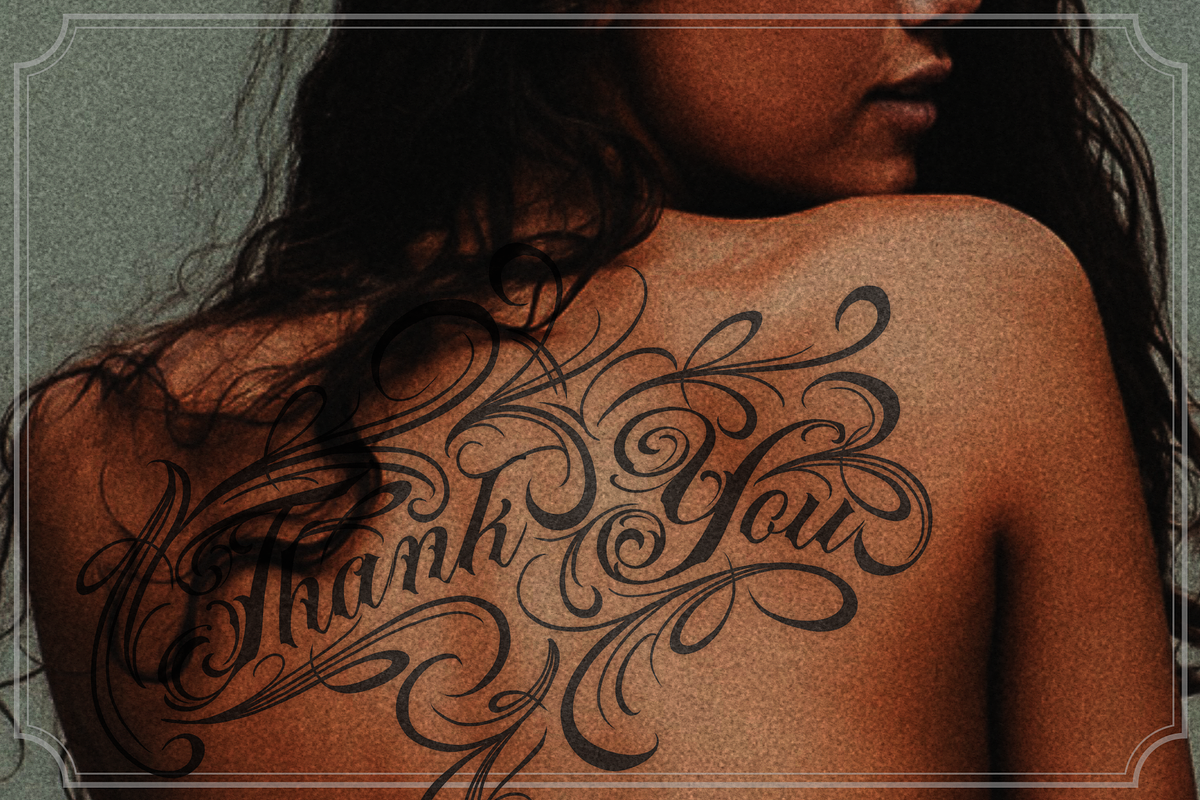
ACUENTRE
is a typeface script that is combined with a Gothic style, so it will be very suitable if you need a font with a gothic impression but still has the beauty side of the script form.
Acuentre will also look more attractive if you mix it with the shape of the ornaments. Suitable for those of you who need a logo for a tattoo studio, or tattoo lettering design and will also look elegant for a beverage label design. Then arguably Acuentre is also suitable for corporate branding and personal branding, especially those who want to create a beautiful but not feminine image.
Features : Ligatures. Support Multilingual Characters.